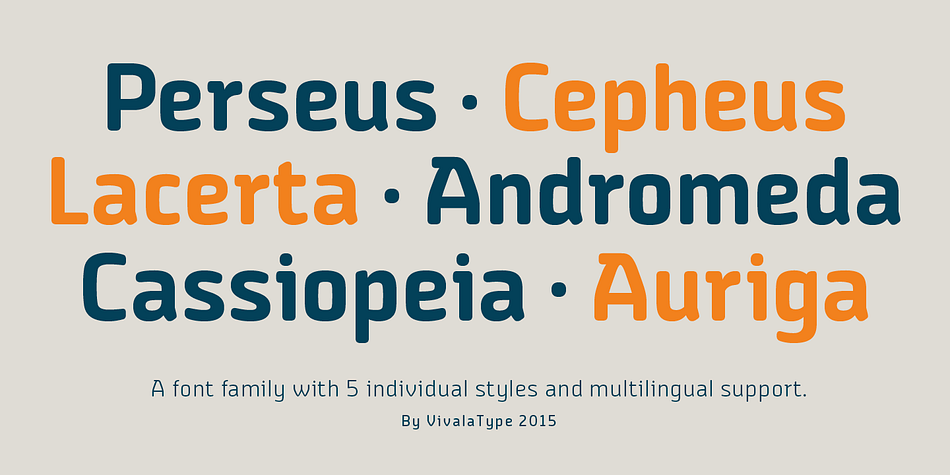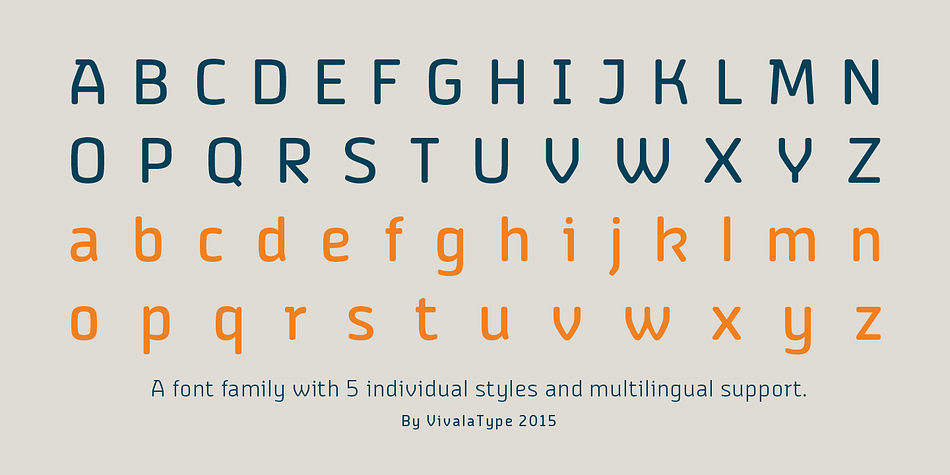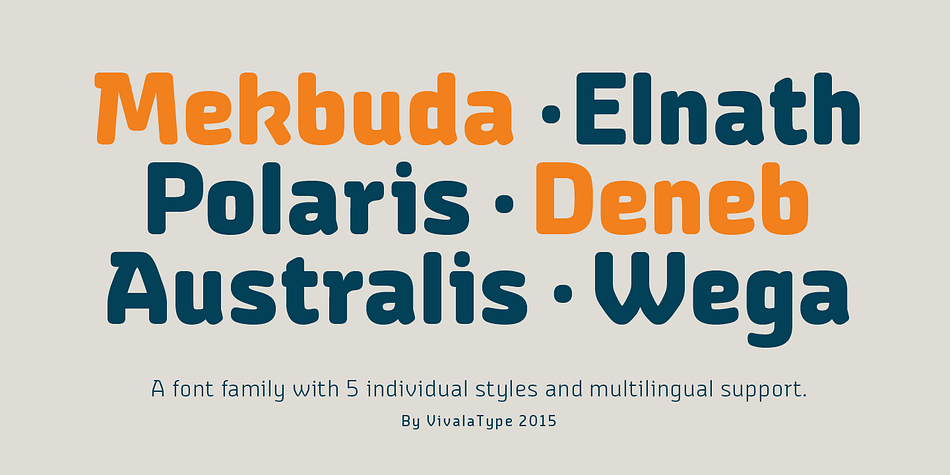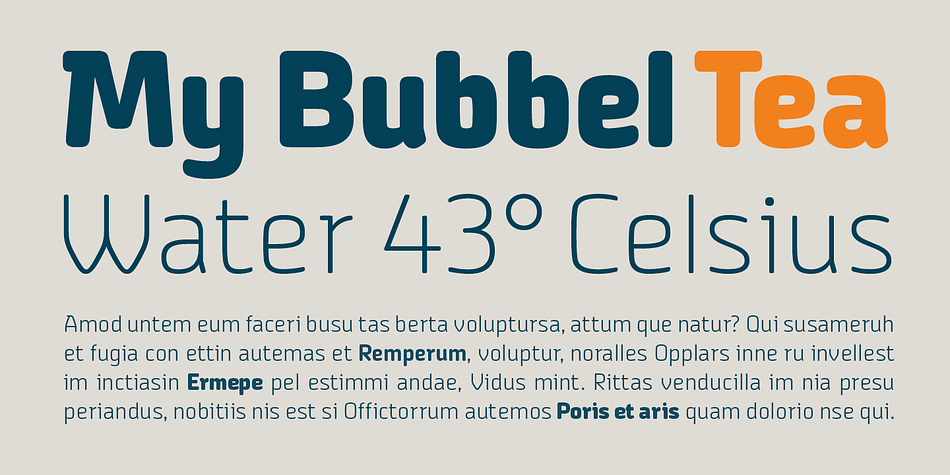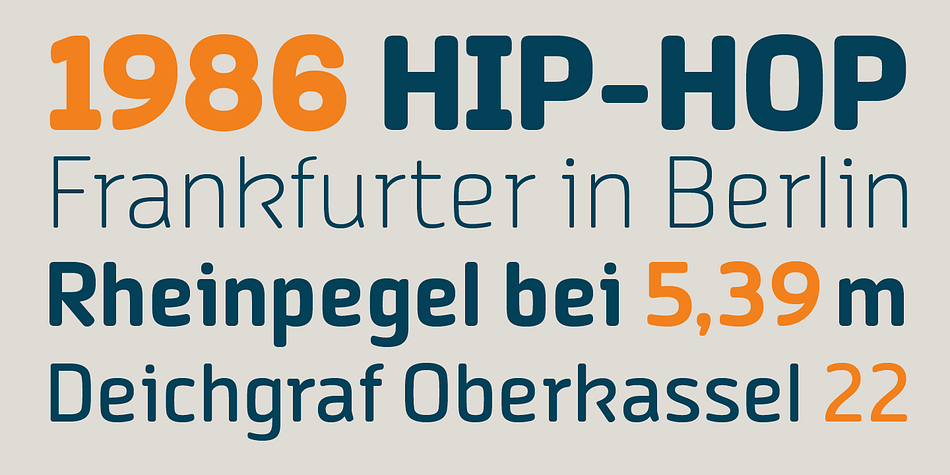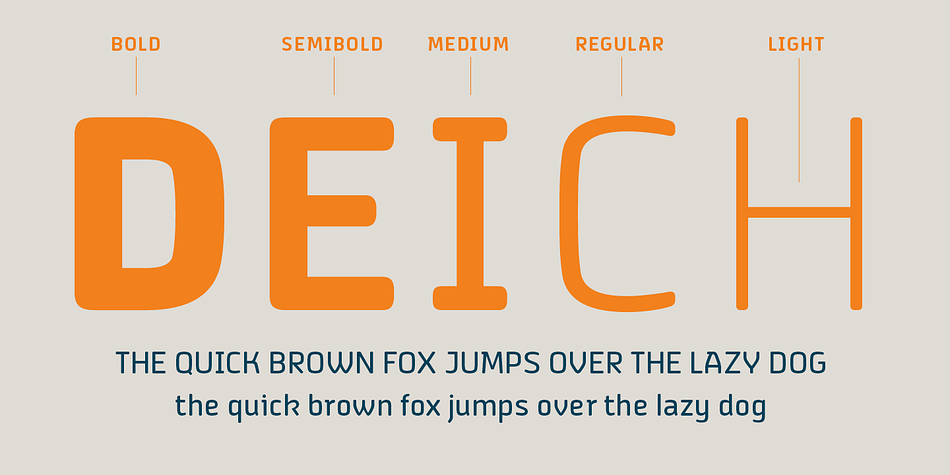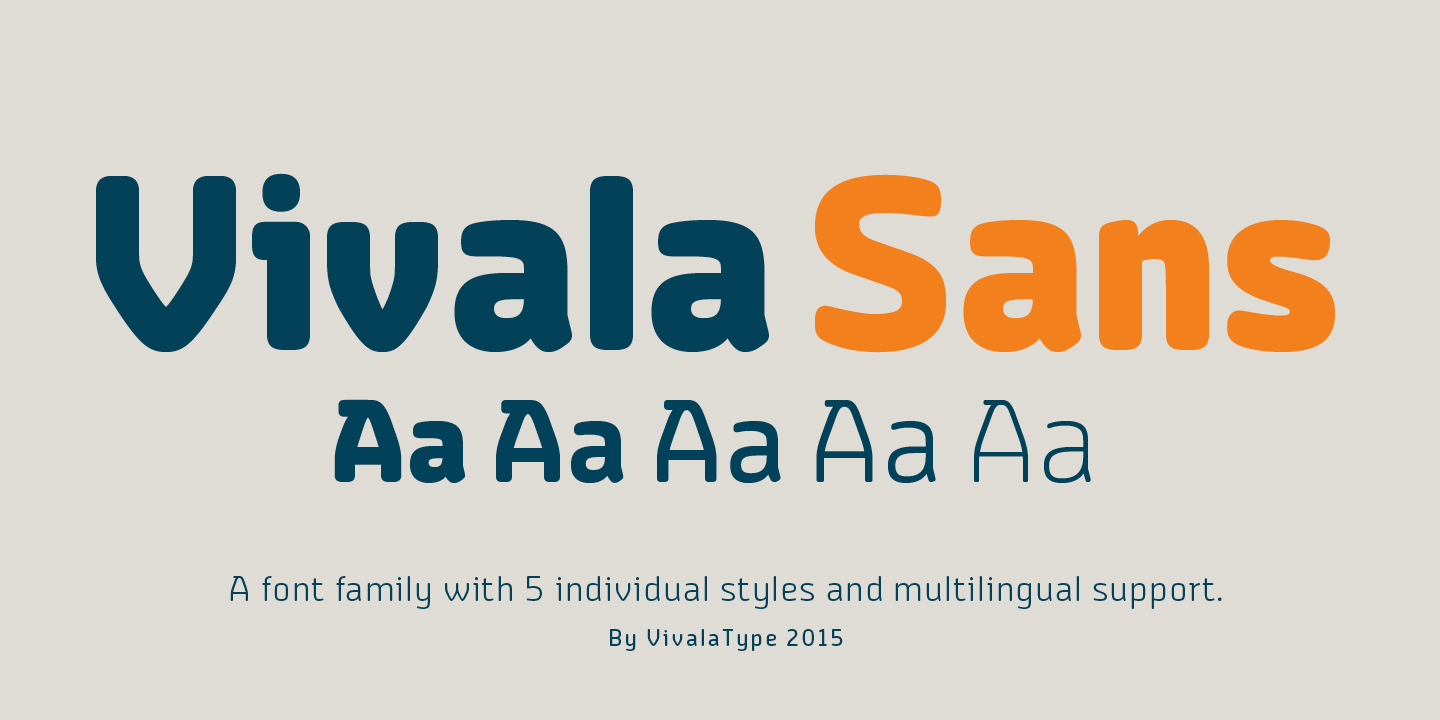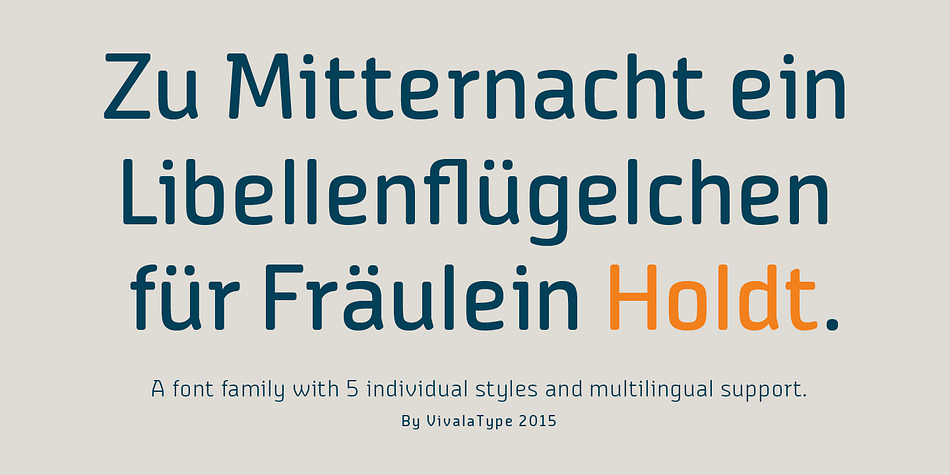
Vivala Sans
Designed by Johannes Hoffmann, Vivala Sans is a sans serif font family. This typeface has five styles and was published by Johannes Hoffmann.
The character of Vivala Sans Round is modern and stylish with elegant squarish shapes. The family includes five weights.  A large x-height is ideal for titles and body text. The extended character set supports languages like Western, Central European, and Eastern European.